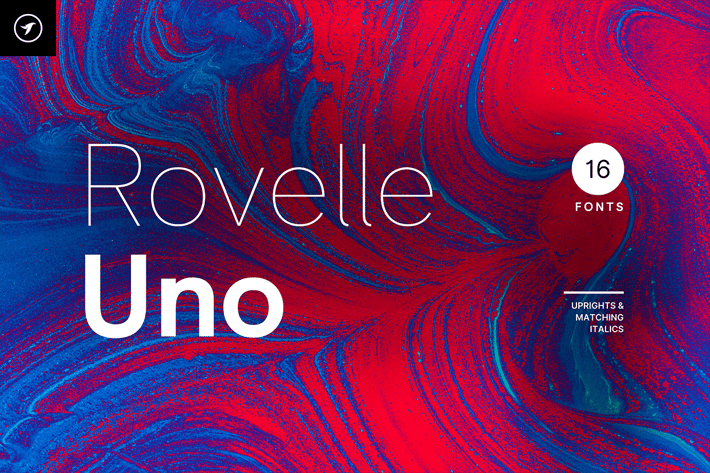
Rovelle Uno - Modern Sans-Serif Font Family
Rovelle Uno is a modern Sans-Serif font family that includes 16 fonts with a clean and balanced design, giving it a timeless and enduring appearance. Rovelle is the second typeface from the Uno class of font families, which contains the most feature-rich Sans-Serif typefaces in our portfolio.
The Rovelle Uno font family is an exceptional pick for creating various designs and textual representations. It is the perfect solution for logotypes, branding, headlines, corporate identities, and marketing materials for both digital and print use.
This typeface is an amazing choice for branding, logotype, design projects, marketing graphics, banners, posters, signage, corporate identities, and editorial design. By adding extra letter spacing, this font transforms into the perfect choice for minimalist headlines and logotypes, as demonstrated in the promo designs attached.
Handcrafted and designed with powerful OpenType features in mind, each weight includes extended language support with Western European, Central European, and South Eastern European sets. A total of 372 glyphs are included.